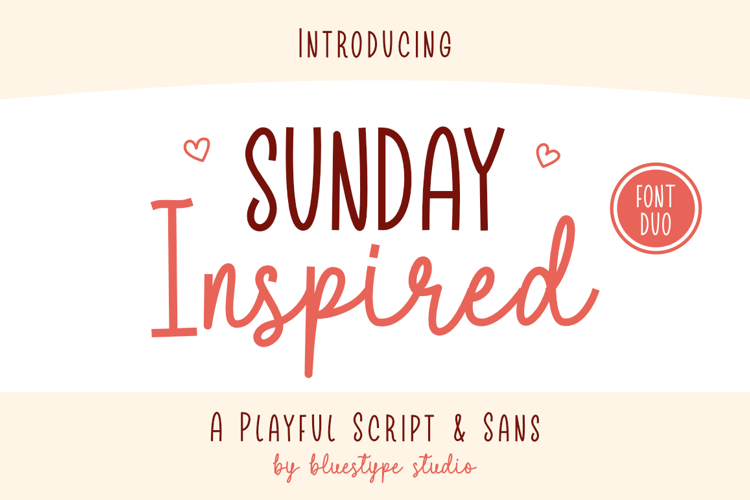
Sunday Inspired Duo Font
Script Style
Sunday Inspired is a delightfully cute and versatile font duo featuring a casual, flowing script paired with a clean, friendly sans-serif. Crafted to bring warmth, and personality to your creative work, this pairing offers the perfect balance between expressive hand-lettering and clean legibility.
Perfect For: Branding & Logos, Packaging, Merchandise, Product Labels, Kids Design, Book Covers, Instagram Quotes, Stationery & Invitation, Menu Design, Watermarks, and Digital Planner.